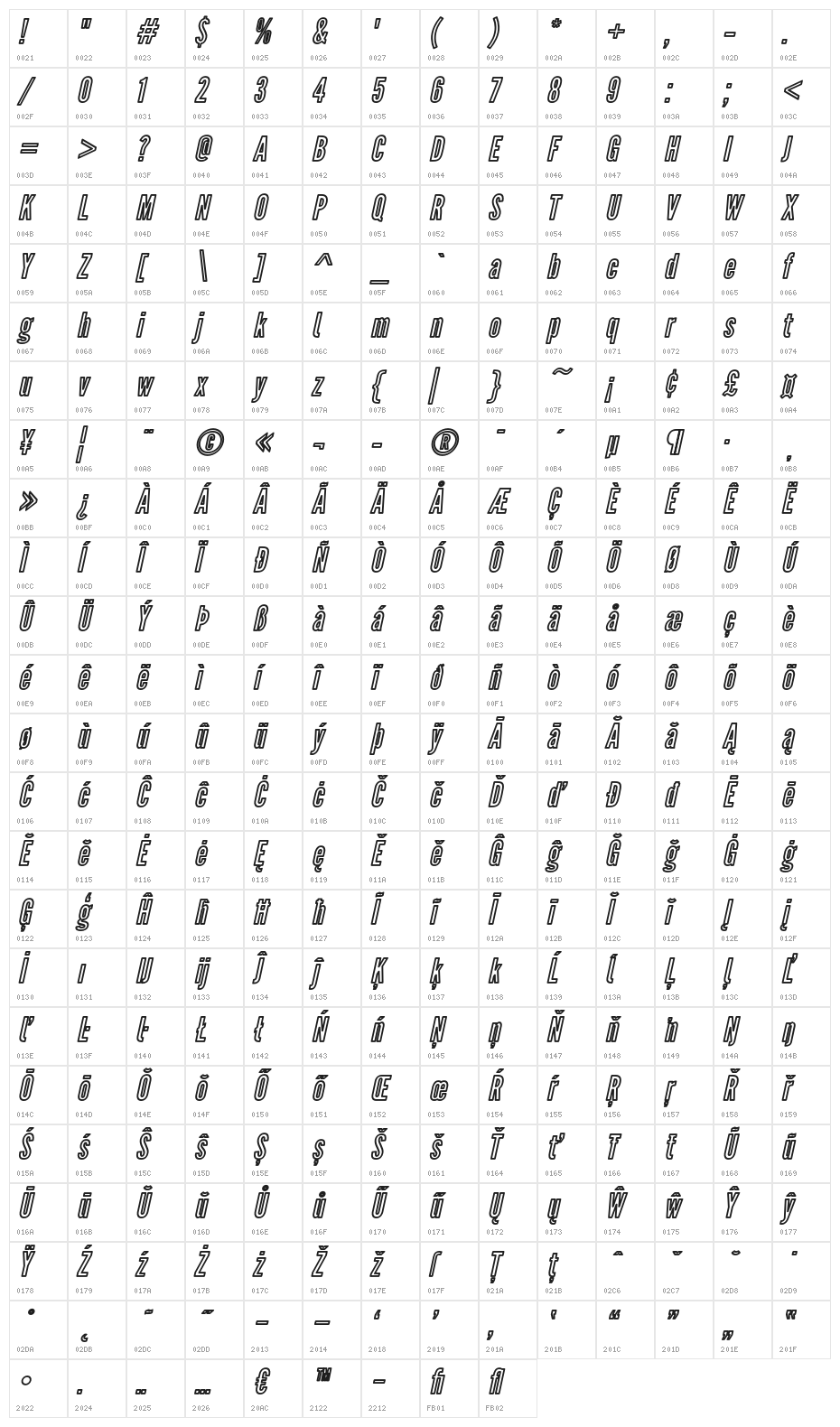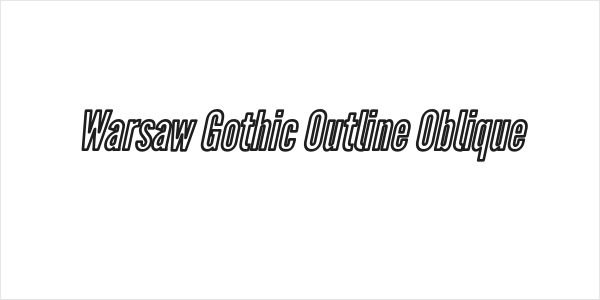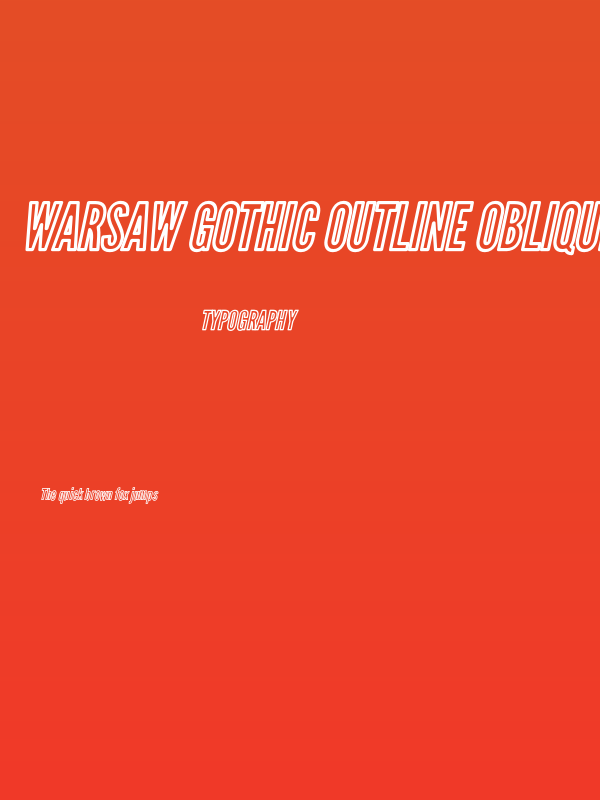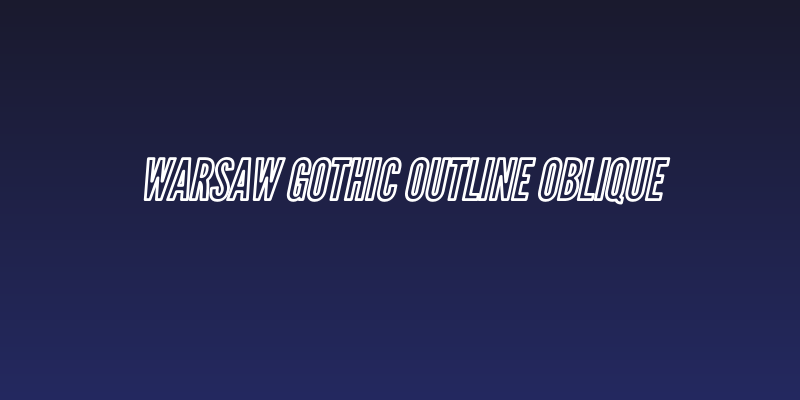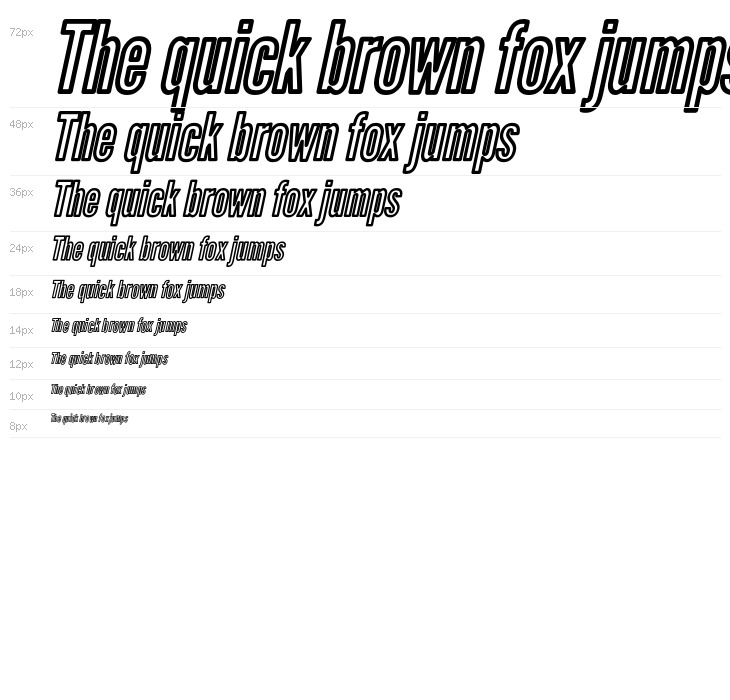
Warsaw Gothic Outline Oblique Font
Warsaw Gothic Outline Oblique Description
This font features a bold, outlined style with a distinct oblique slant, giving it a dynamic and modern appearance. The uppercase and lowercase letters maintain a consistent width, with a slight forward tilt that adds a sense of motion. The outline effect creates a striking visual impact, making it ideal for attention-grabbing designs. The numerals and special characters are designed to match the boldness and slant of the alphabet, ensuring a cohesive look across all text elements. The overall style is both contemporary and versatile, suitable for a variety of creative applications.
| Proposed Projects | Ideal for posters, logos, headlines, and any design requiring a bold statement. |